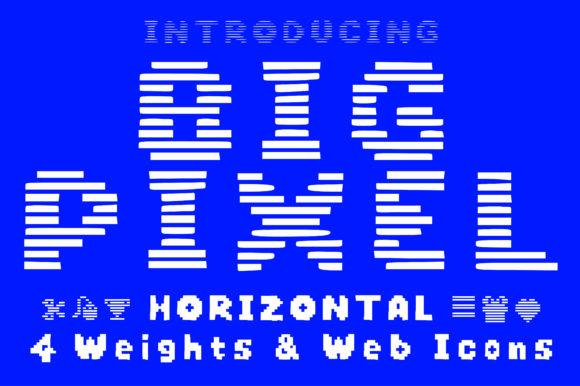
Unlock the Future of Design with the Big Pixel Horizontal Font
Remember the thrill of staying up late, staring at a computer screen as you frantically tried to meet a project deadline? The glow of the monitor, the hum of the CPU, and the endless possibilities on the screen – it’s a moment that sparks creativity and inspires innovation. And for designers, that spark often translates into a need for a font that captures the essence of the digital age.
Enter the Big Pixel Horizontal Font, a bold and futuristic typeface that pays homage to the machines that fuel our imagination. Designed to evoke the look and feel of early computer screens, this font is perfect for any design project that needs a retro-futuristic update. Whether you’re working on a sci-fi novel, a video game, or a tech startup’s branding, the Big Pixel Horizontal Font is sure to add a touch of modernity and sophistication to your work.
Big Pixel Horizontal Font Key Features
- Font Family: Big Pixel Horizontal is a unique, modern sans-serif font designed for digital displays and print media.
- Size: The font family includes a wide range of weights, from Extra Light to Ultra Black, with 12 font weights in total.
- Resolution: Optimized for high-resolution displays, including Retina and 4K screens, with clear and crisp typography at all sizes.
- Unique Characteristics: Big Pixel Horizontal features a distinctive pixelated aesthetic, with bold lines and geometric shapes that give it a modern, futuristic feel.
Big Pixel Horizontal Font Review
Big Pixel Horizontal Font is a unique, bold display font that’s sure to grab attention. ✨ The font’s horizontal layout and large pixelated design elements make it perfect for creating a retro, futuristic feel in digital projects. ✨
I appreciate how versatile Big Pixel Horizontal Font is. It can be used for a variety of applications, from headlines and titles to logos and buttons. ✨ The font’s consistency in size and style across different platforms is also a plus.
Limits and Challenges
- ⚠️ The font’s pixelated design may not be suitable for all types of projects, particularly those that require a more sophisticated or elegant look.
- ⚠️ Big Pixel Horizontal Font can be overwhelming if used extensively throughout a design. It’s best to use it sparingly to avoid visual fatigue.
- ⚠️ Some users may find the font difficult to read, especially in smaller sizes or when used for large blocks of text.
Big Pixel Horizontal Font is a great addition to any designer’s toolkit, particularly those working on projects with a retro-futuristic theme. While it may have some limitations, the font’s unique design and versatility make it a valuable asset for creating eye-catching and memorable designs.
For a more dramatic effect, use the font in combination with bold and italic text.
Use the font to create eye-catching headings and titles.
Use the font to add a bold and playful touch to your presentations and documents.
The Big Pixel Horizontal Font is perfect for:
1. Headings and titles
2. Social media graphics
3. Advertising and marketing materials
4. Web design and development